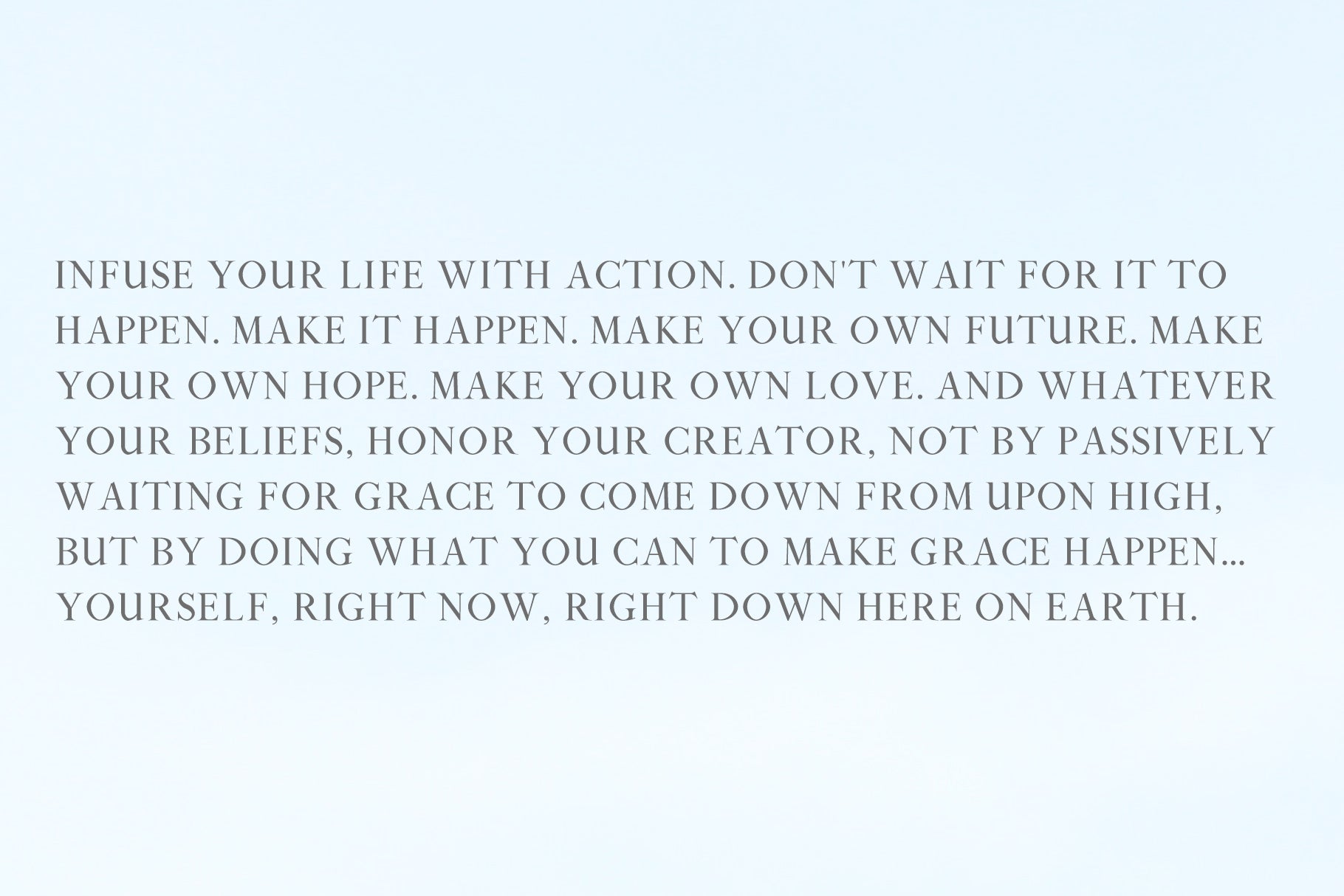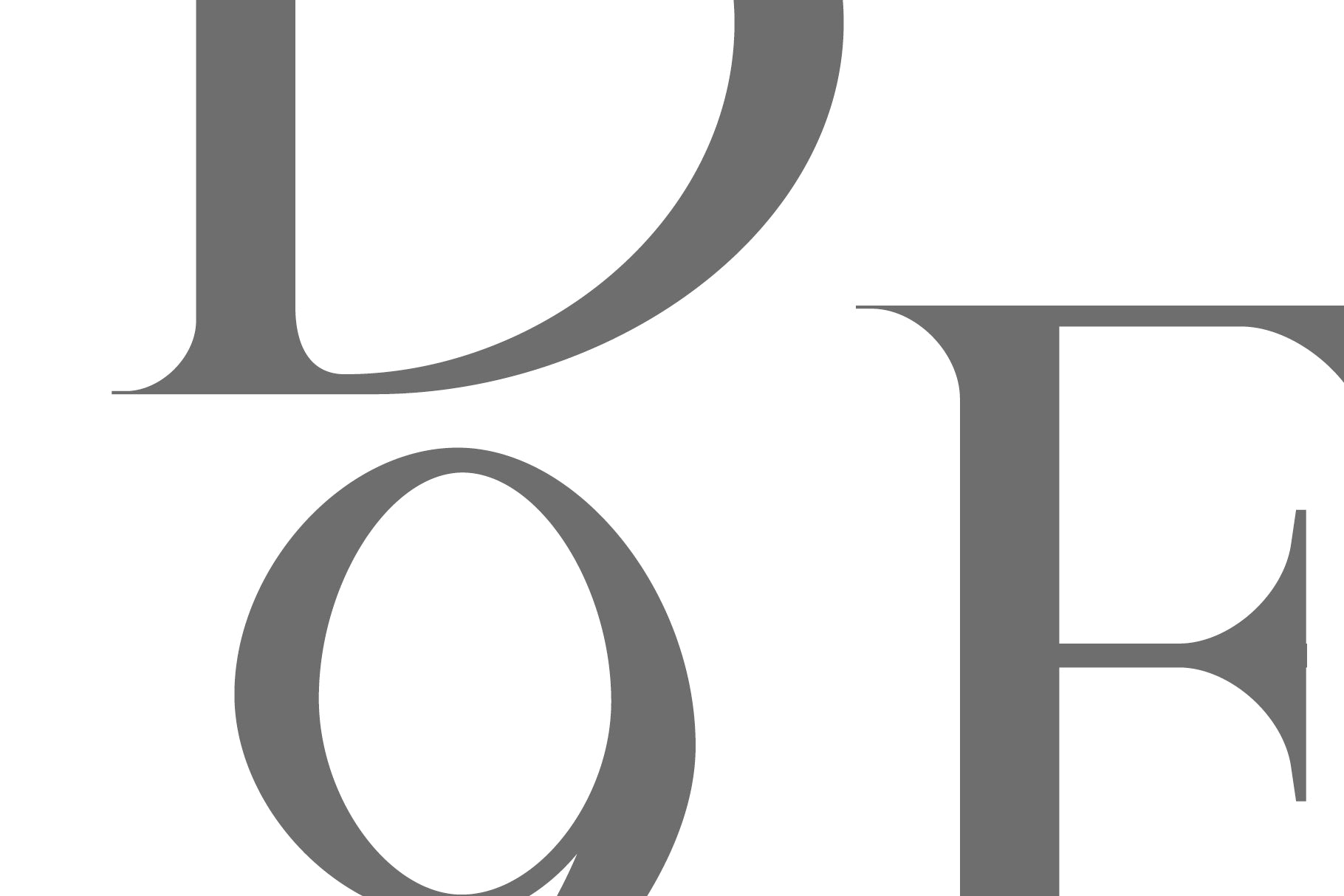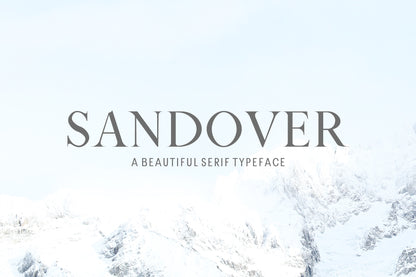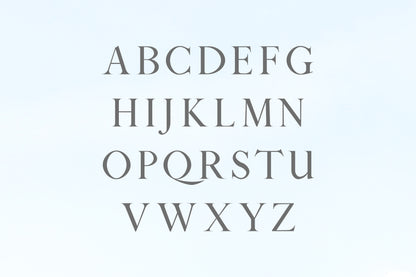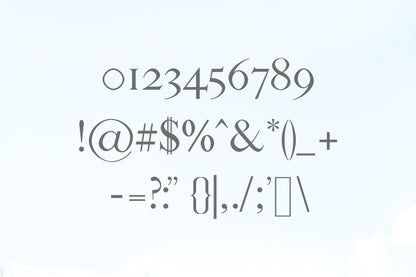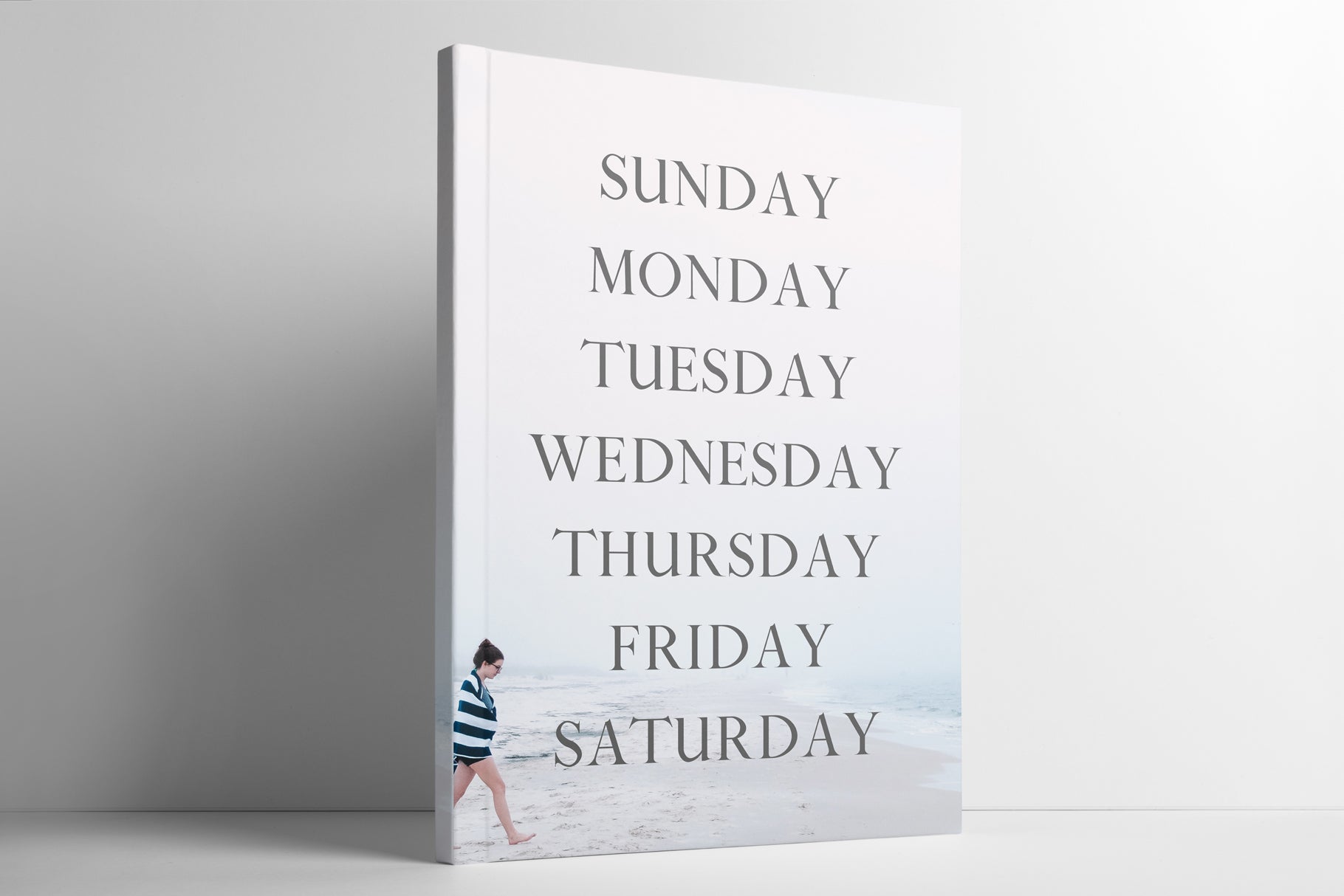
Sandover is a beautiful serif typeface. It contains 5 weights with all basic glyphs with Non-English characters.
Font Weight: Regular, Thin, Light, Round and Bold
Wacian Font Features:
Uppercase Letters
Lowercase Letters
Numbers & Punctuation
Non English Characters (Latin Supplement + Latin Extended A)